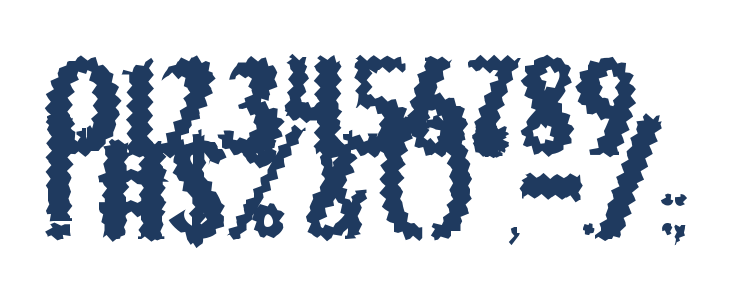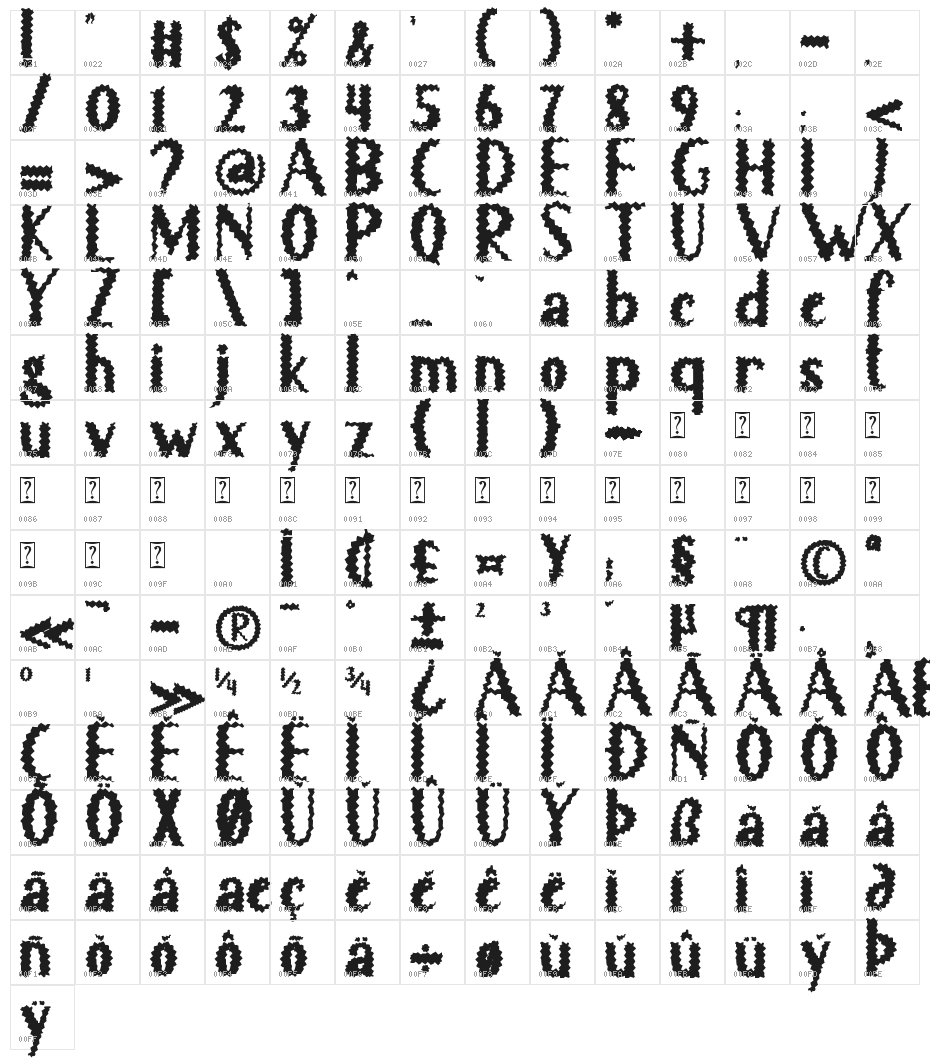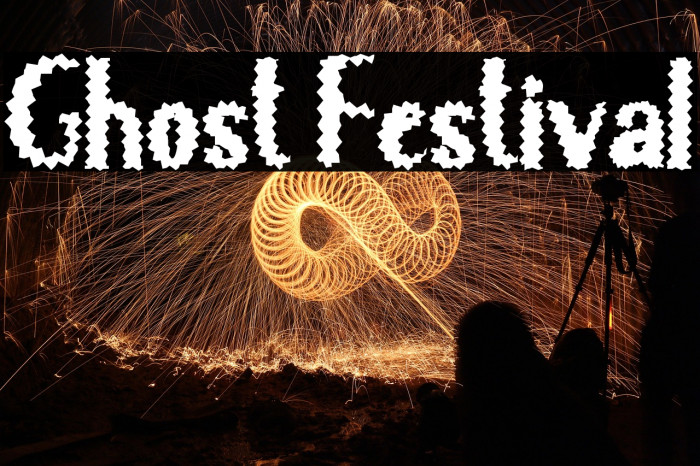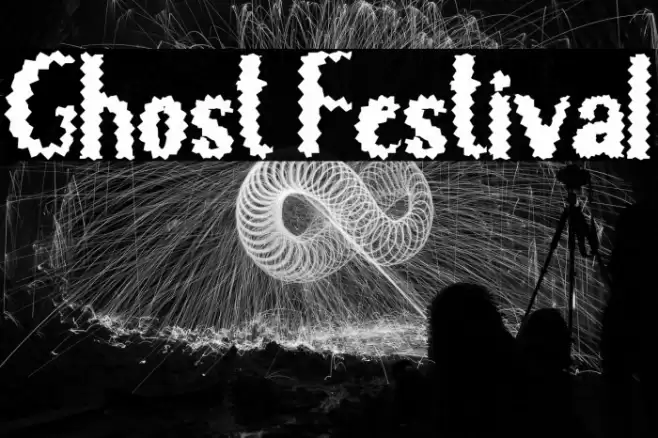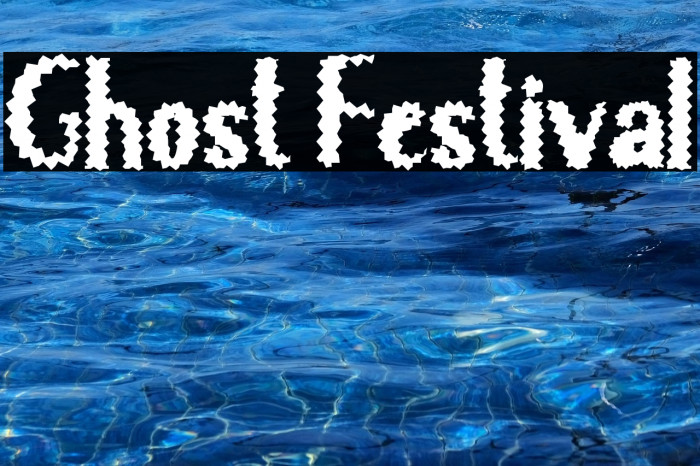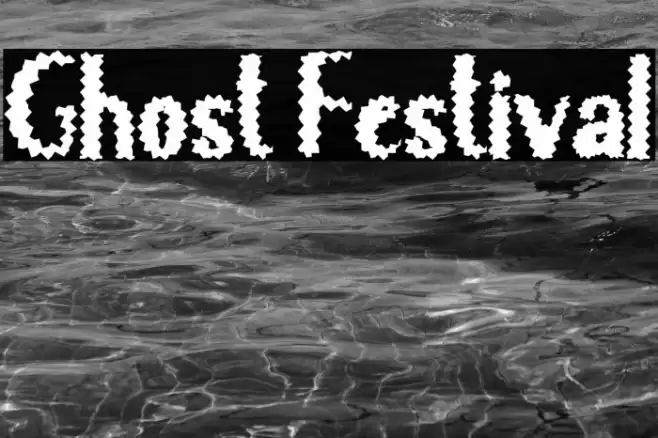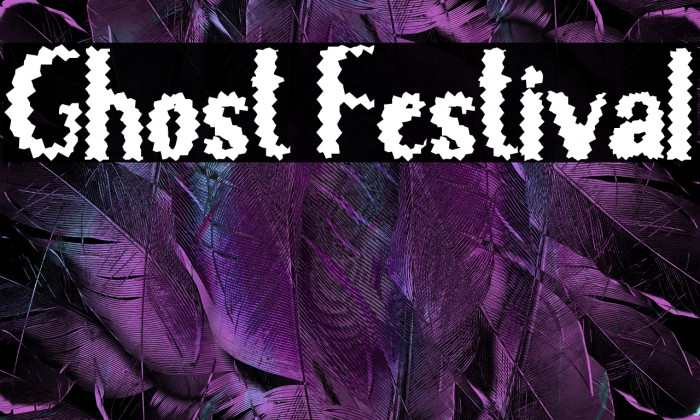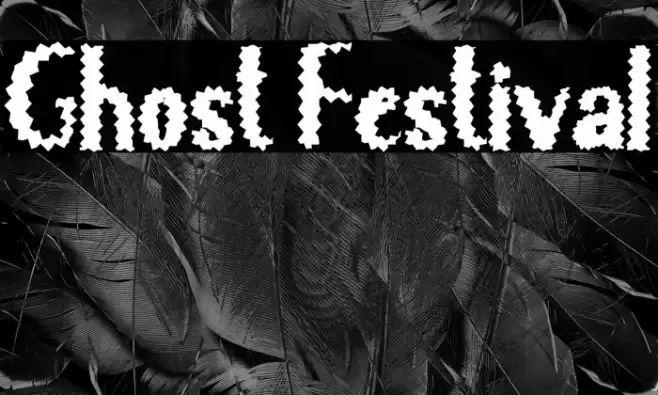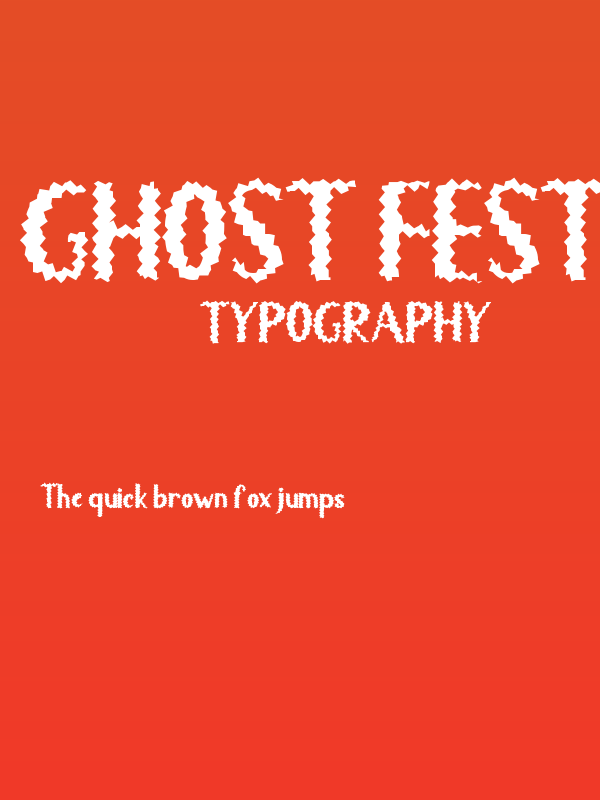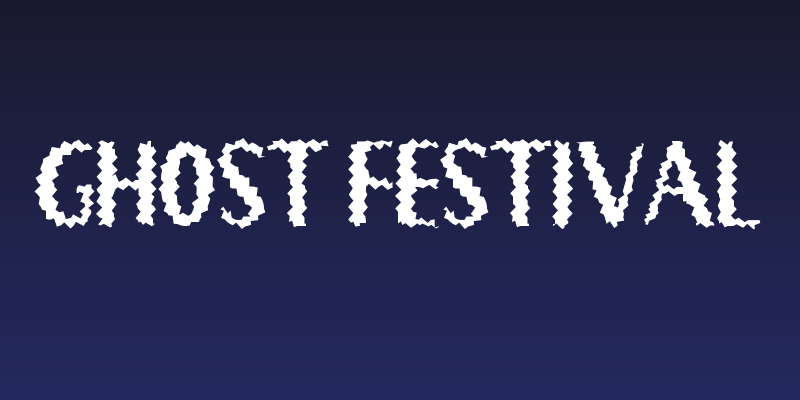
Ghost Festival Font
Ghost Festival Description
This font features a jagged, irregular outline that gives it a spooky and eerie appearance, reminiscent of torn paper or ghostly shapes. The characters are bold and have a strong presence, making them stand out with their unique, distressed edges. The uppercase and lowercase letters maintain a consistent style, with a playful yet haunting vibe. Numbers and special characters follow the same design, ensuring uniformity across all elements. This font is perfect for Halloween-themed projects or any design that requires a touch of the supernatural.
| Proposed Projects | Ideal for Halloween invitations, horror movie posters, haunted house flyers, and spooky-themed merchandise. |